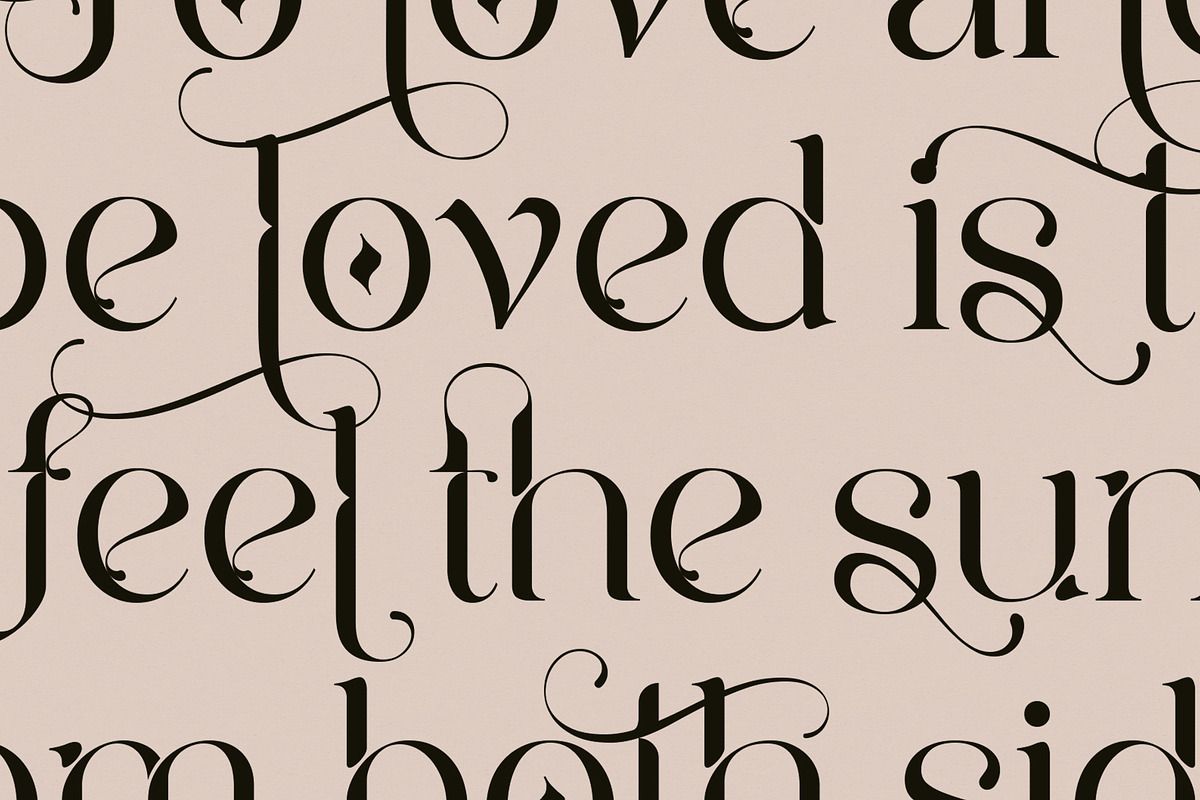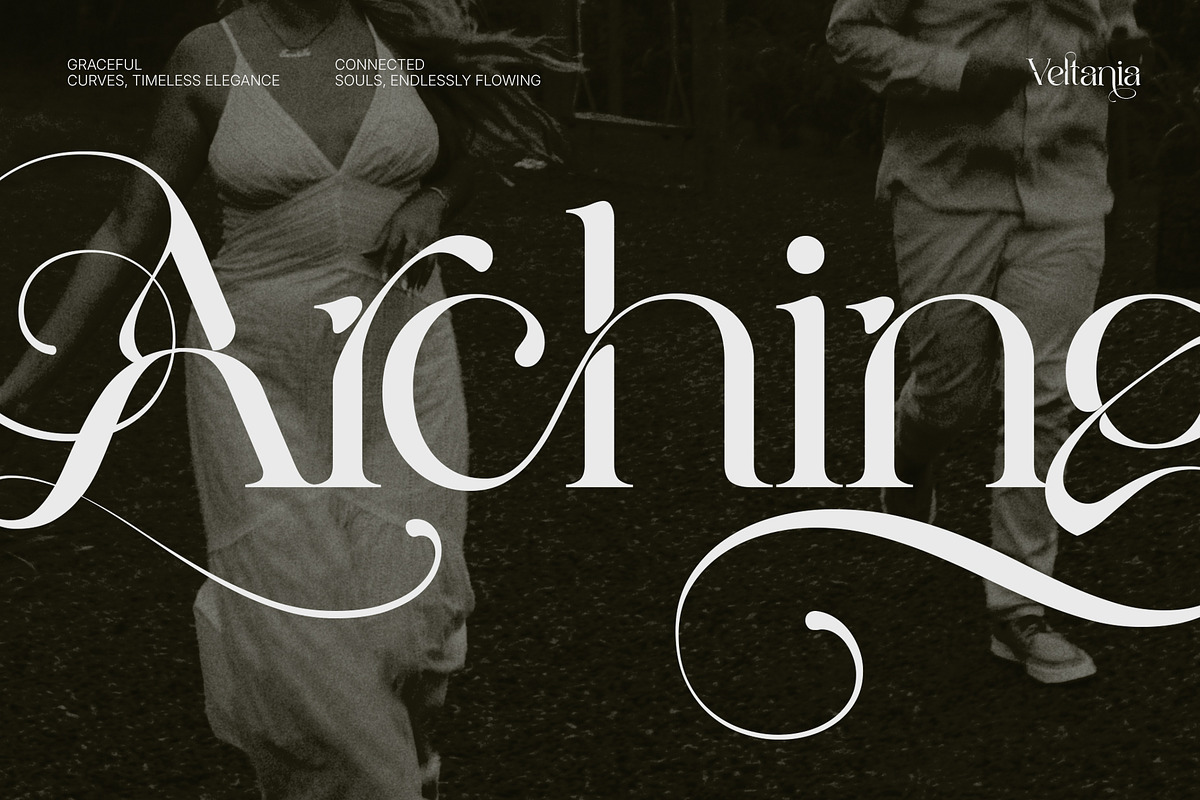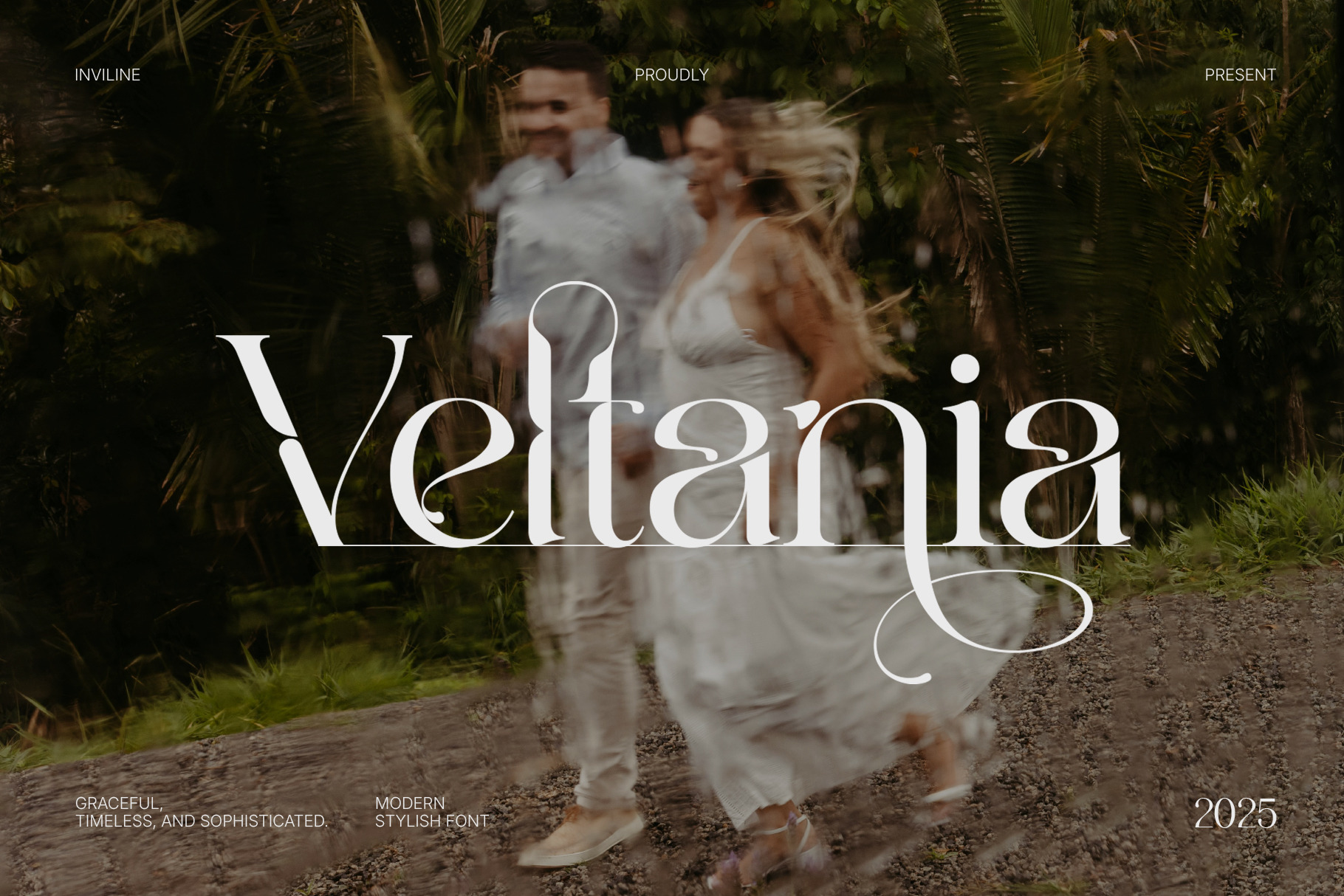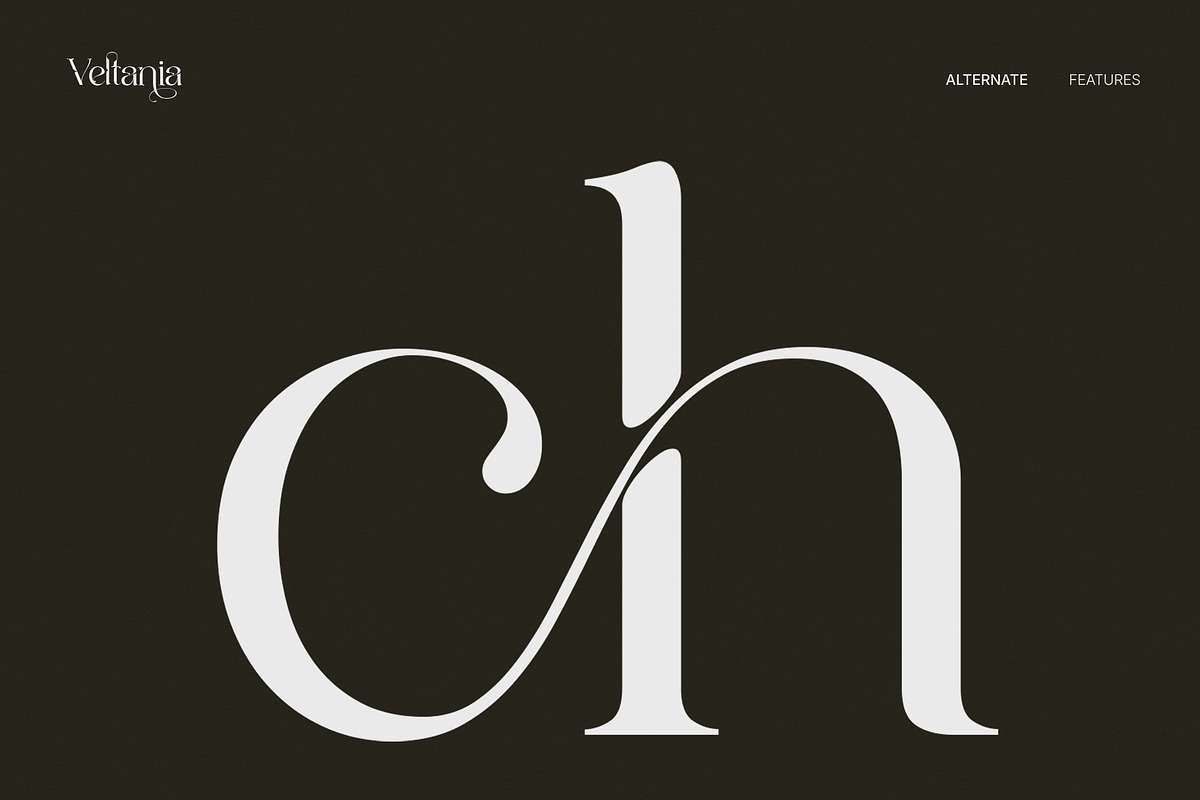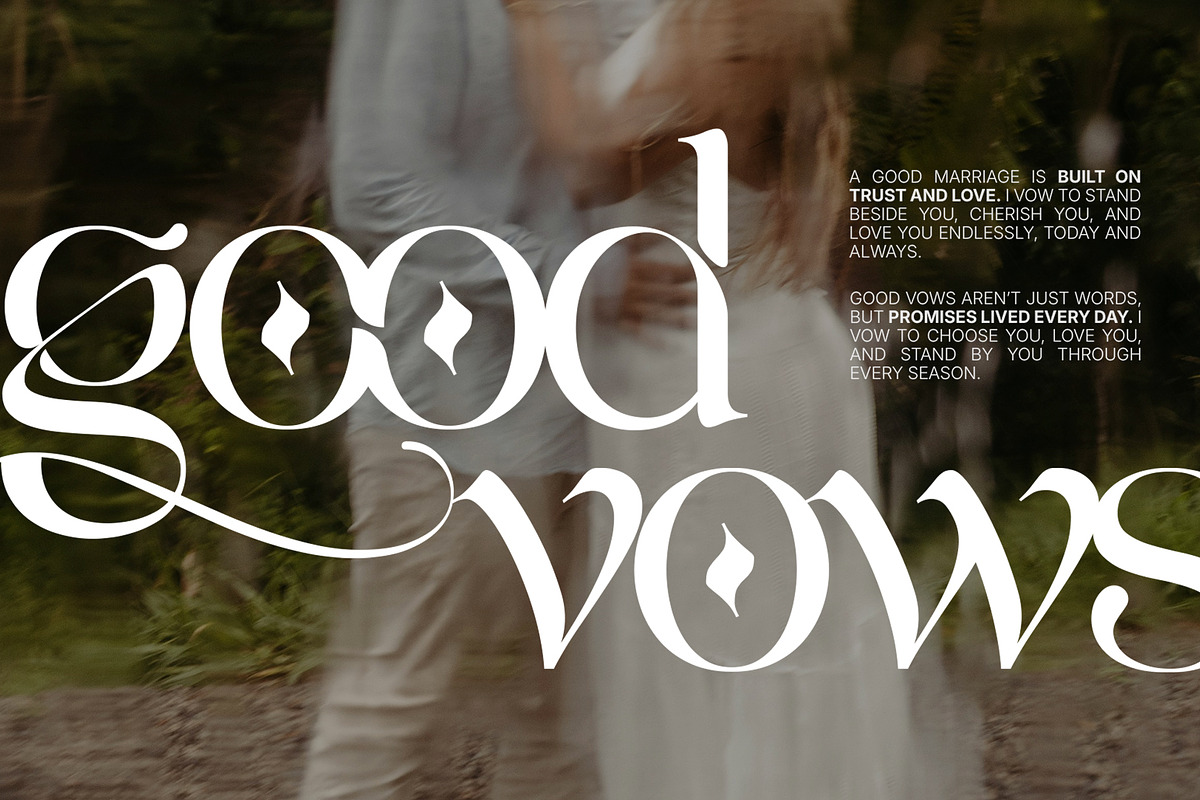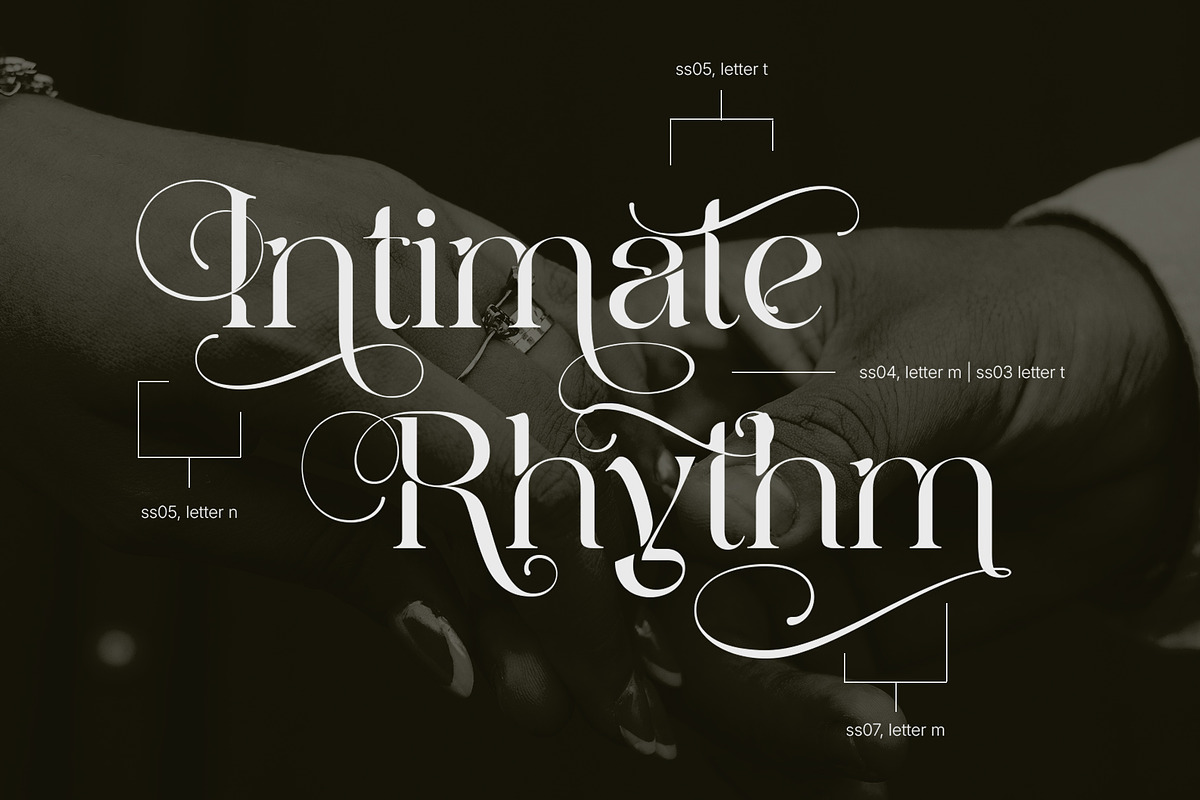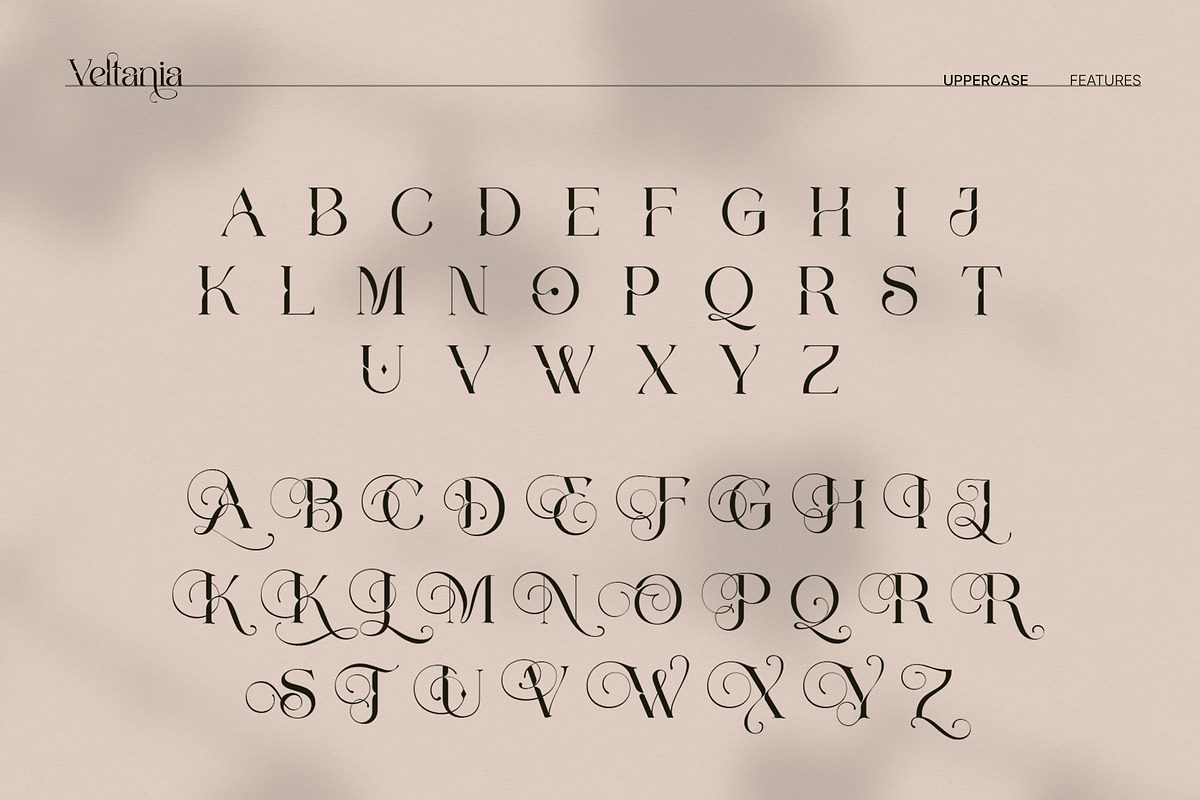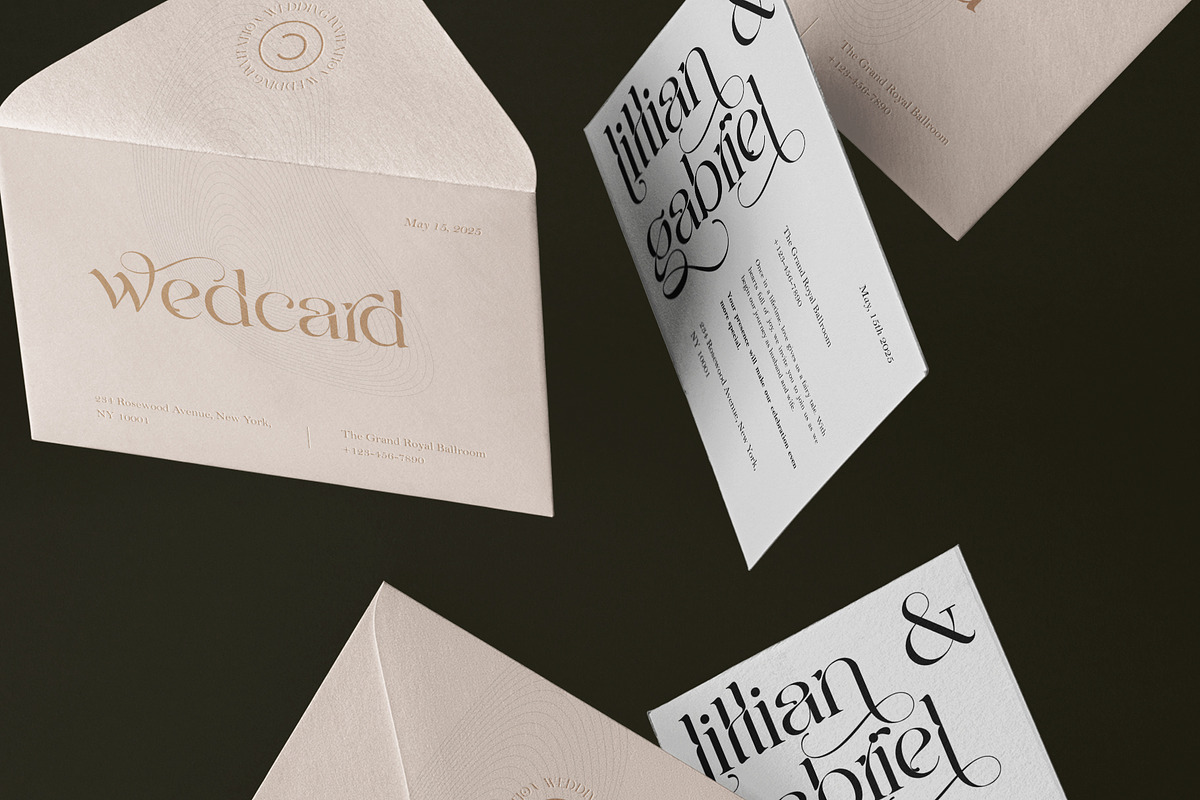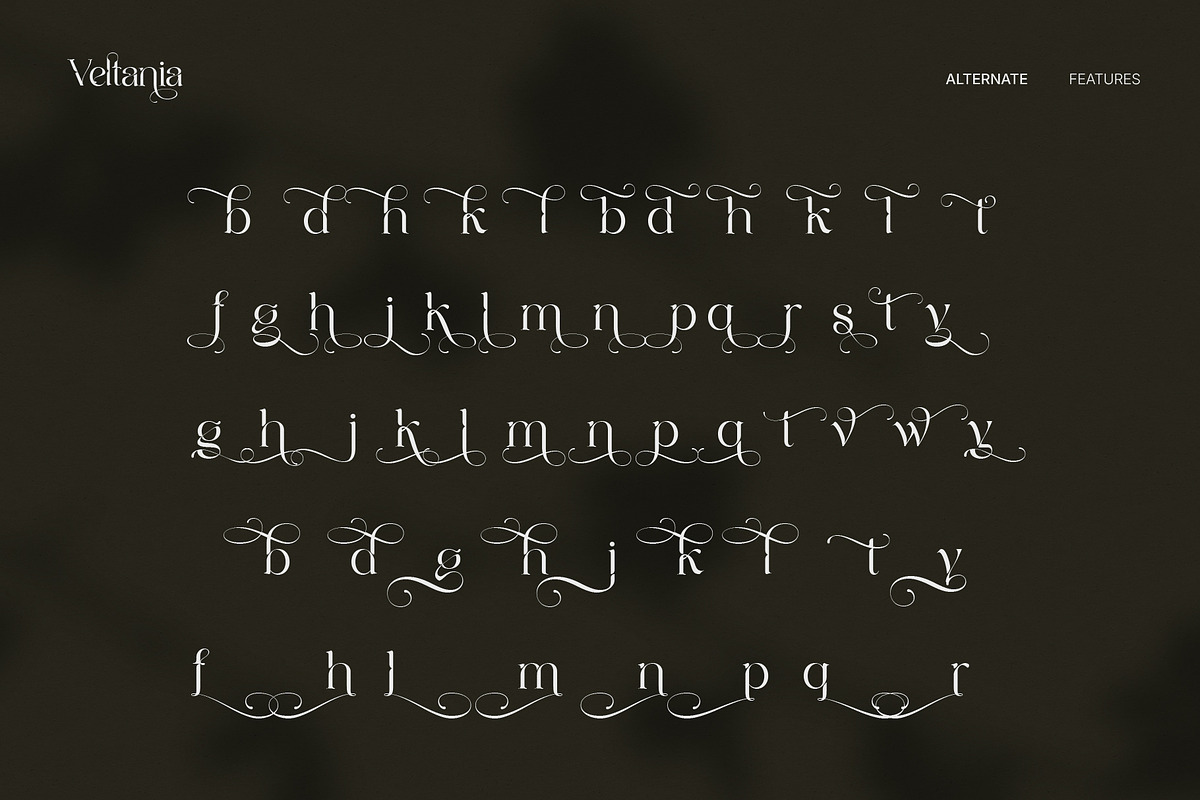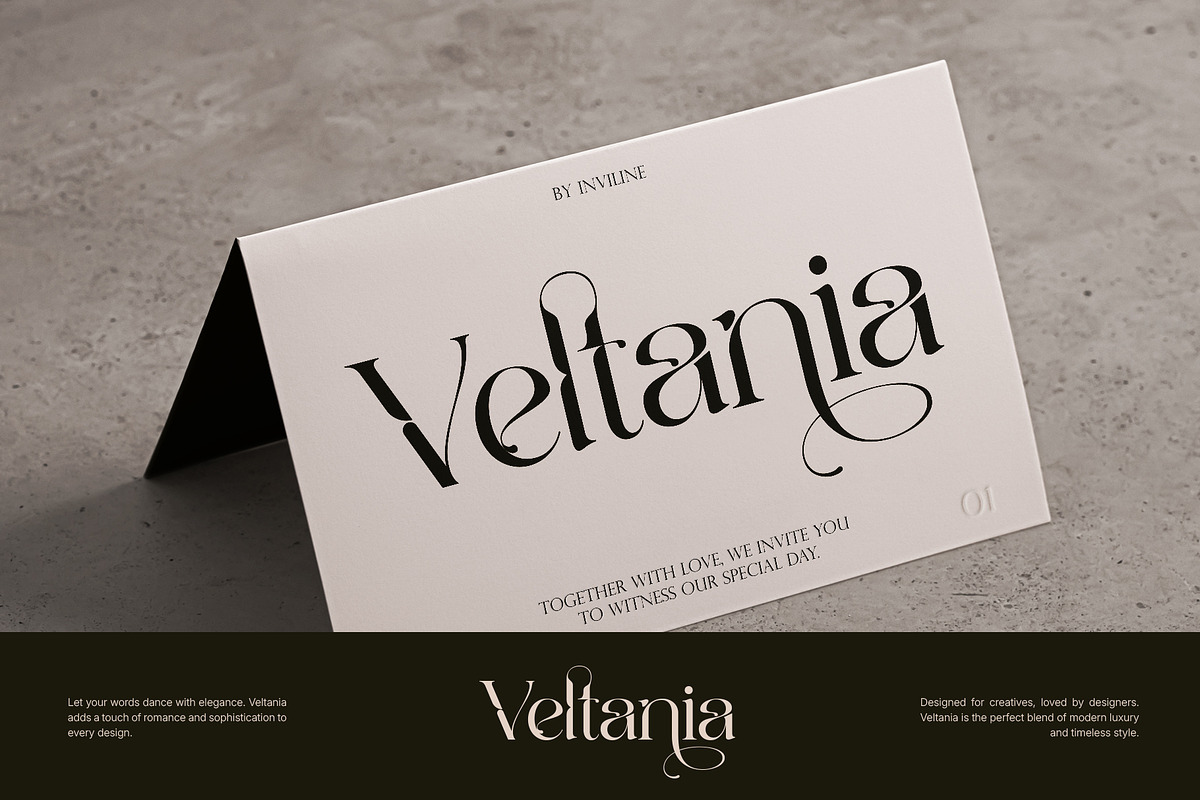
Veltania - Modern Serif Font
Introducing Veltania - Modern Serif Font, the perfect fusion of elegance and modernity in a serif font. Designed for versatility, Veltania features clean lines and sophisticated curves, making it ideal for branding, editorial design, and digital media. With a range of weights and styles, it effortlessly adapts to any creative project, whether you're crafting stunning headlines or elegant body text. Elevate your designs with Veltania and bring a touch of modern sophistication to your typographic creations!
- Uppercase & Lowercase Characters: Fully designed for a complete typographic experience
- Numerals & Punctuation: All the numbers and punctuation marks you need for any design task
- Multilingual Support: Includes characters for multiple languages, ensuring global usability
- High-Quality Design: Each font is crafted with attention to detail, ensuring a polished and professional look